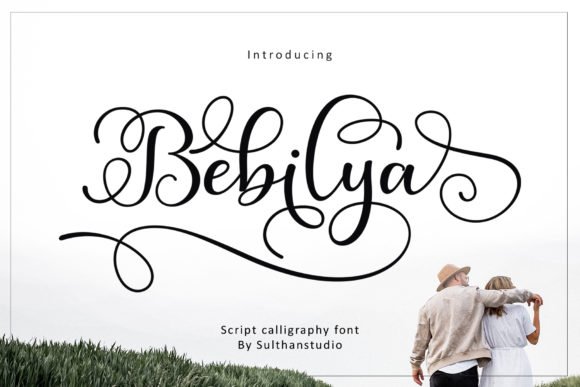
Discover the Perfect Handwritten Touch with Bebilya Font
There’s something magical about creating a design that transports your audience to a world of wonder and enchantment. Maybe it’s the spark of inspiration that strikes when brainstorming ideas for a client, or the thrill of bringing a concept to life with every brushstroke. Whatever it is, it’s a feeling that designers know all too well.
For those special moments, you need a font that can convey the same sense of whimsy and romance. Enter Bebilya Font, a lovely and playful handwritten font that’s perfect for projects like wedding invitations, postcards, and quote designs. With its elegant, cursive script, Bebilya Font adds a touch of sophistication and charm to any design, making it a valuable addition to any designer’s toolkit.
Bebilya Font Key Features
- Unique Characteristics: Bebilya Font features a unique, hand-drawn design with intricate details and subtle nuances, giving it a distinctive and elegant appearance.
Bebilya Font Review
I’ve had the chance to work with Bebilya Font, and I must say it’s a unique and intriguing typeface. ✨ Here are some things that work well:
- Unconventional style: Bebilya Font has a distinct, hand-drawn feel that can add a touch of personality to your designs.
- Good for creative projects: Bebilya Font’s quirky style makes it perfect for creative projects, such as invitations, posters, or social media graphics.
- Not ideal for body text: Bebilya Font’s irregular letterforms can make it difficult to read for extended periods, making it better suited for headlines or short chunks of text.
Overall, Bebilya Font is a solid choice for designers looking for a unique and creative typeface. While it may not be suitable for all projects, its unconventional style and high-quality vector files make it a great addition to any designer’s toolkit.
Tips: Use Bebilya Font for titles and headings to add a touch of elegance to your designs.
Tips: Use Bebilya Font for creating custom logos, typography-based art, or adding a touch of sophistication to your designs.
Tips: Use Bebilya Font for creating professional-looking presentations, reports, or documents.
Bebilya Font is suitable for a variety of design projects, including:
1. Fashion and lifestyle branding.
2. Luxury product packaging.
3. High-end typography-based art.
4. Professional presentations and reports.
5. Custom logos and branding.
Alternatives to Bebilya Font
Pacifico Font is a beautiful, elegant script font. It’s ideal for use in headings, titles, and other text that requires a touch of sophistication and luxury. Pacifico is a more traditional and classic font compared to Bebilya Font, which has a more modern and quirky feel.
Great Vibes Font is a modern, elegant script font with a relaxed and casual feel. It’s perfect for use in headings, titles, and other text that requires a touch of playfulness and creativity. Great Vibes Font is more versatile than Bebilya Font and can be used in a variety of contexts, from formal to informal.
Alex Brush Font is a beautiful, handwritten script font with a personal and intimate feel. It’s ideal for use in headings, titles, and other text that requires a touch of warmth and personality. Alex Brush Font is more delicate and refined than Bebilya Font, which has a bolder and more playful feel.